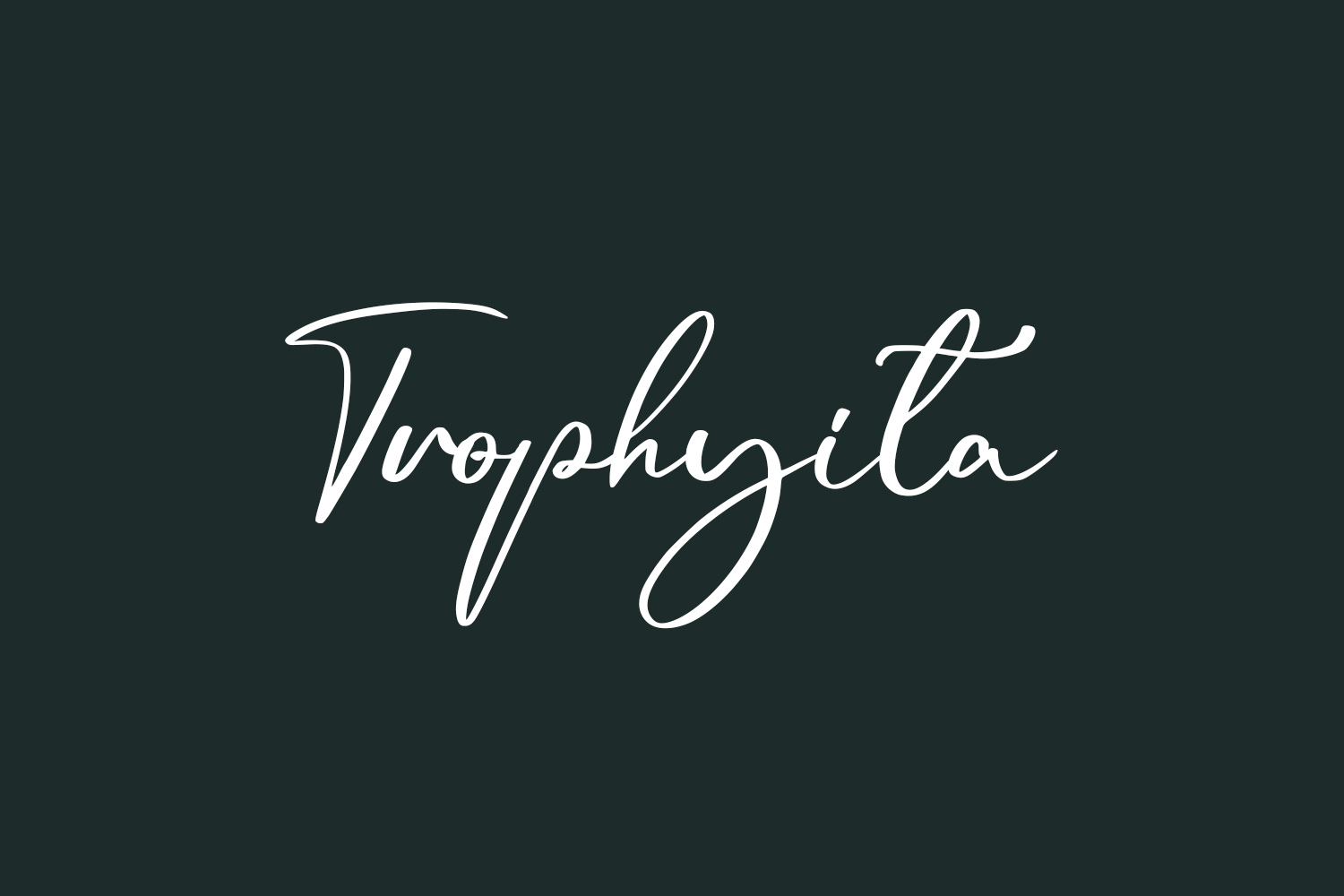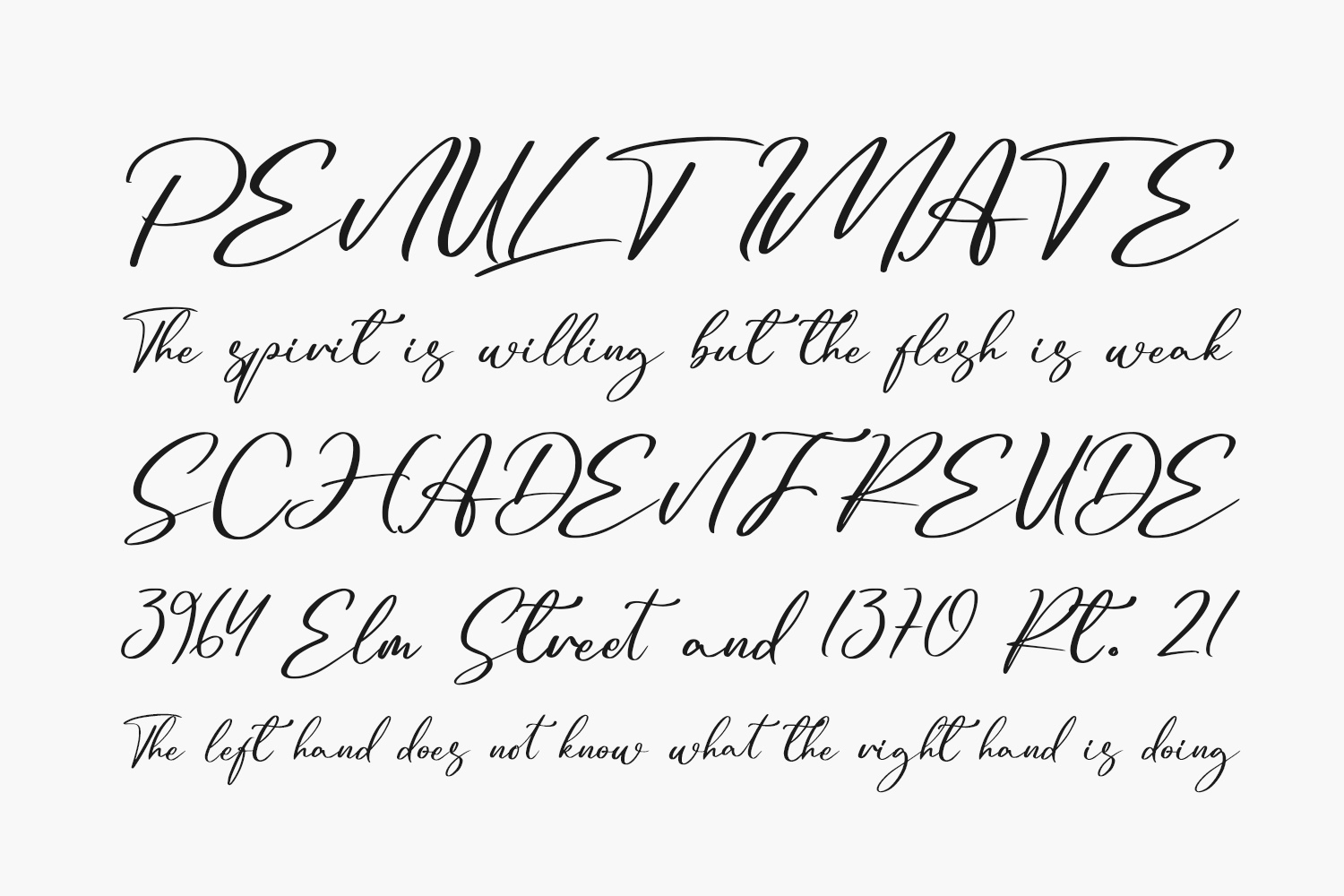
Trophyita Free Font is a graceful and ravishing handwritten font. Its distinct and well-rounded letters make this font a masterpiece. Fall in love with its adaptable style and use it to create lovely designs. Trophyita Free Font was designed by Rudhi Sasmito and is free for personal use only. Please purchase the full version for commercial use.
Designed by Rudhi Sasmito